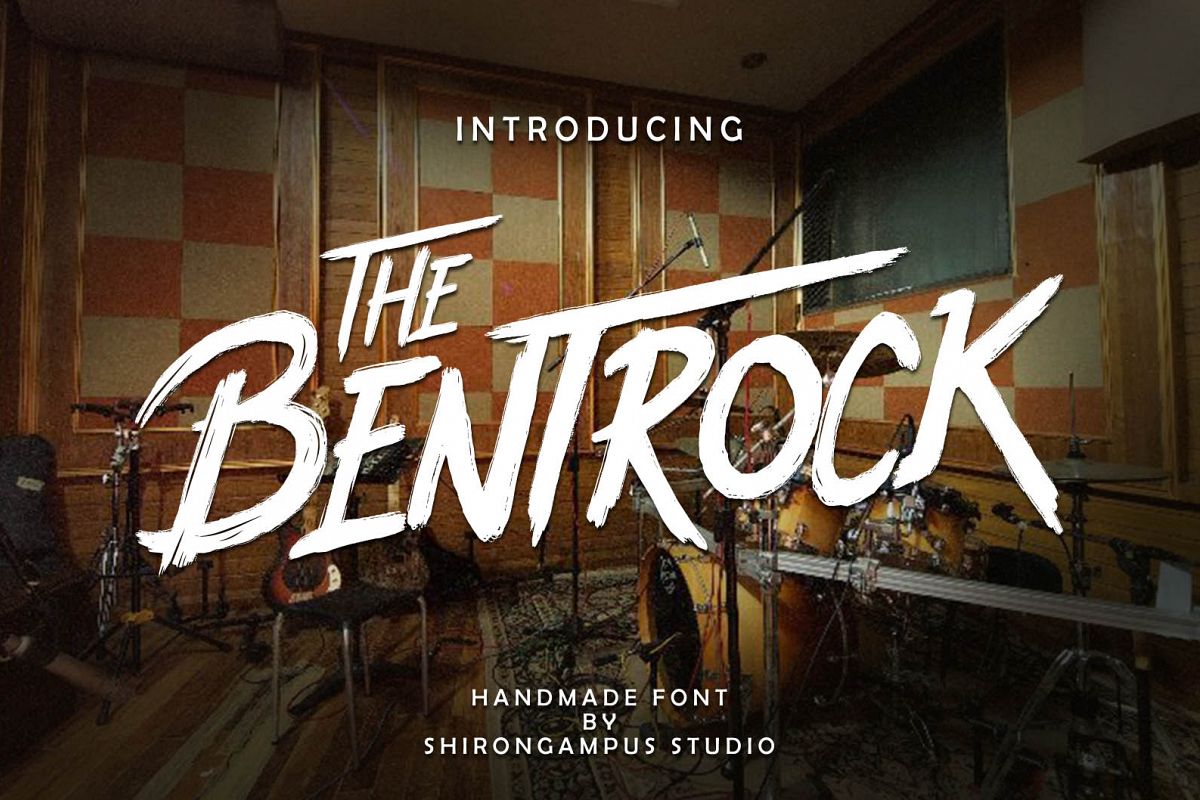
The BentRock Typeface
A handmade typeface presented by Shirongampus studio. The BentRock is suitable for your awesome works (Brands, Poster, Logo, Advertisement, etc)
Feature :
Stylistic Alternates
Stylistic Set
Ligatures